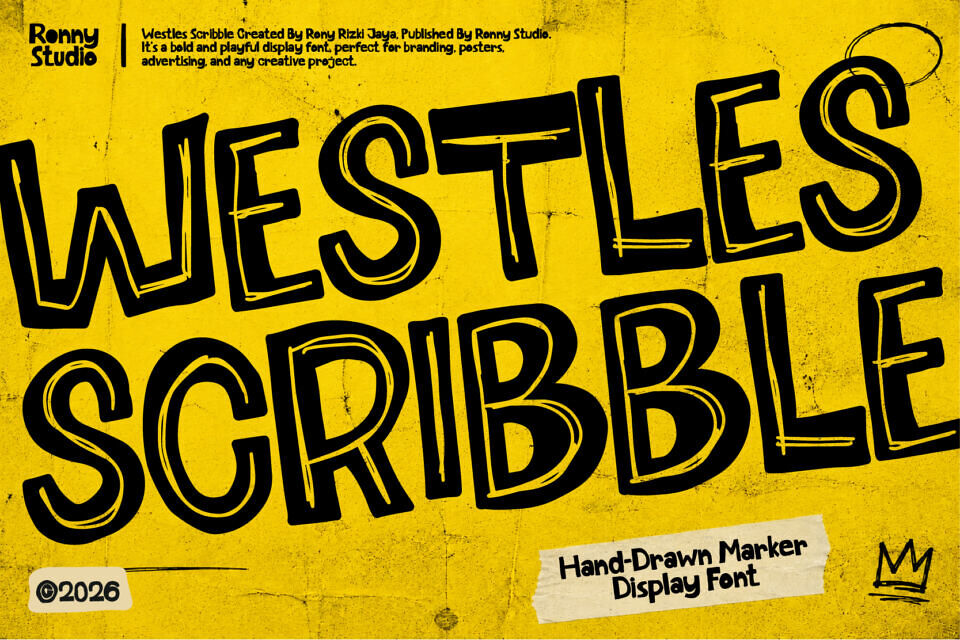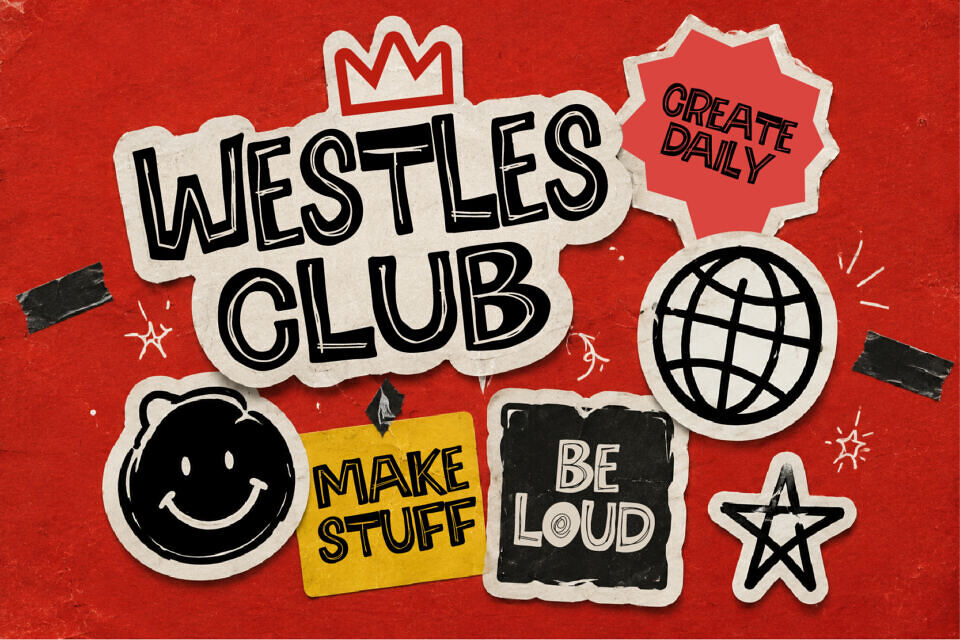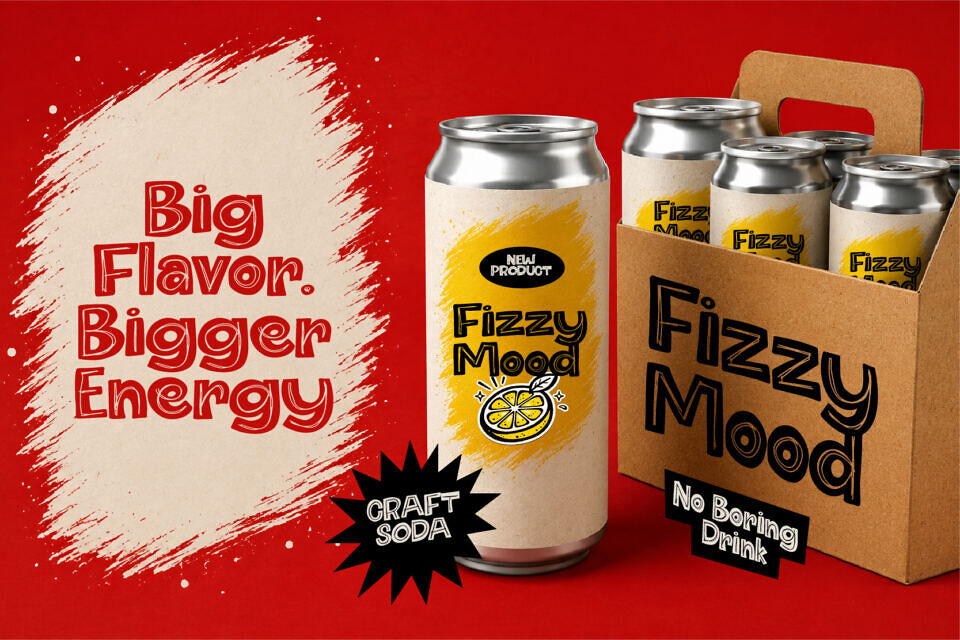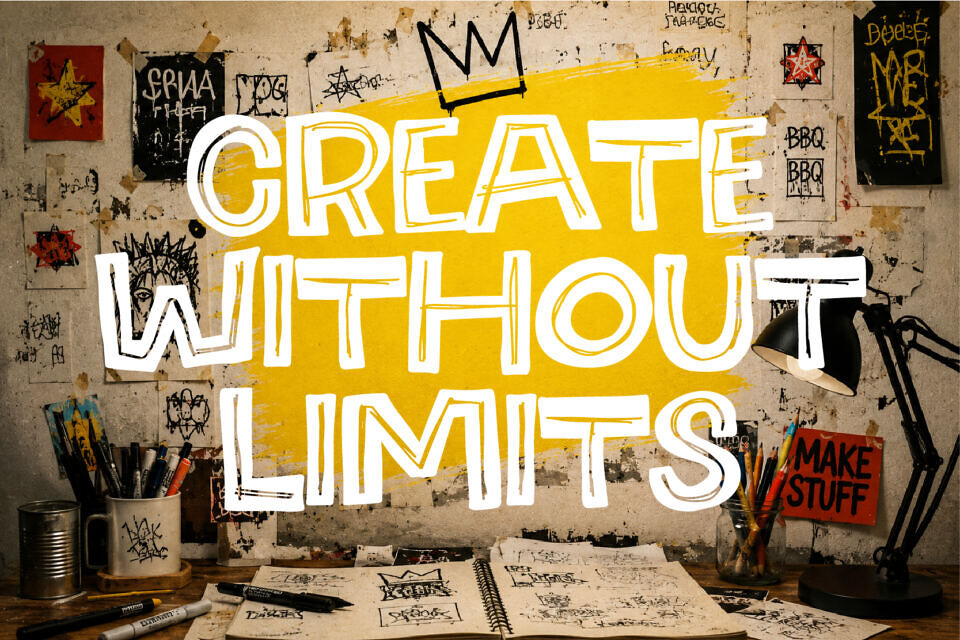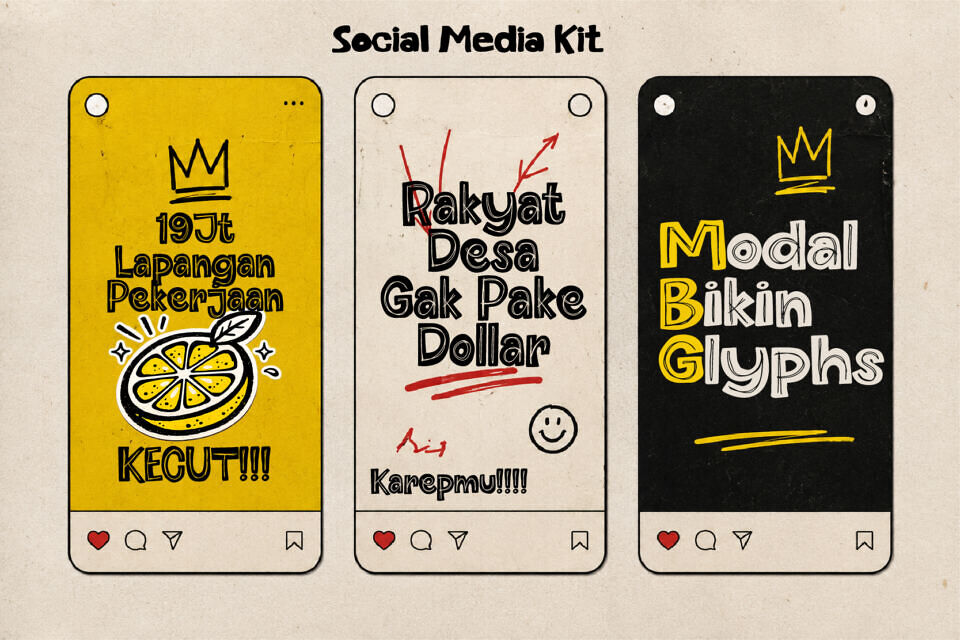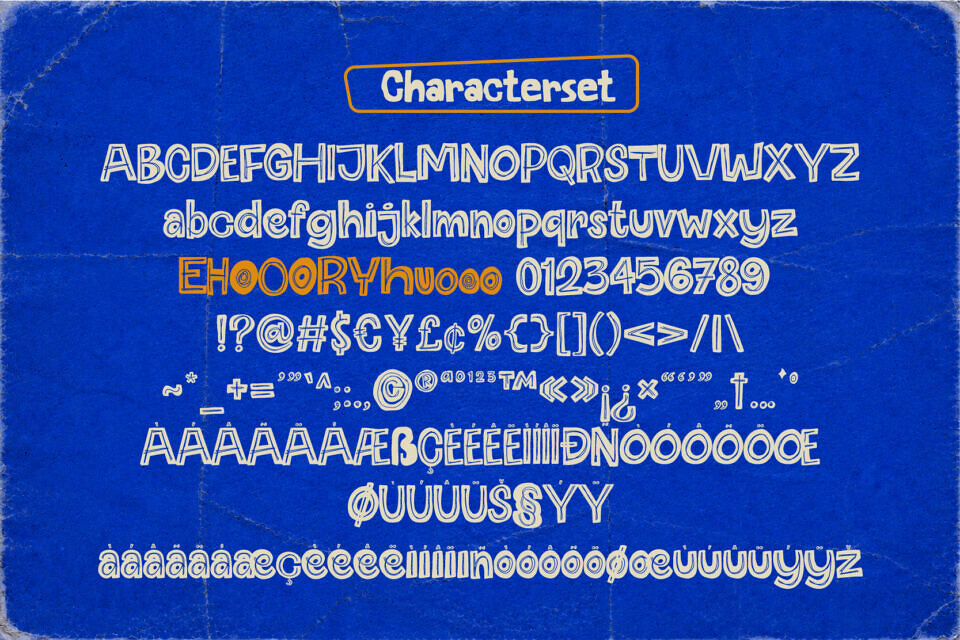
Westles Scribble Font
Westles Scribble is a fun and Hand-drawn Marker display font with playful hand-drawn characters that instantly grab attention. Perfect for packaging, posters, branding, social media, logos, headlines, and creative projects that need a unique and energetic look.